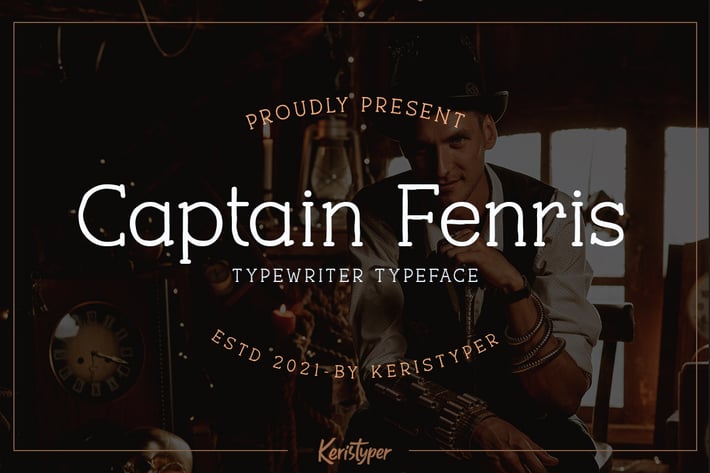
Captain Fenris Serif Font
Captain Fenris is a custom handmade / handwritten Serif typeface with a simple and casual personality making it perfect for text typography, logotypes, marketing graphics, display, branding, package and advertisement design and anything in between.